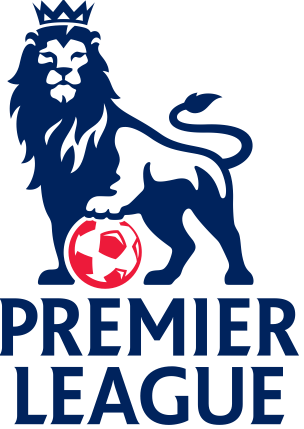
Anyone know where i can find the official Premier League font with numbers included?
It's a bespoke font commissioned by the Premier League for their exclusive use – as such, it's not generally available to the public I'm afraid.
You may be able to find a copycat version, although I couldn't tell you where to look besides having a good Google around (which I suspect you've probably already done).
It's a bespoke font commissioned by the Premier League for their exclusive use – as such, it's not generally available to the public I'm afraid.
You may be able to find a copycat version, although I couldn't tell you where to look besides having a good Google around (which I suspect you've probably already done).